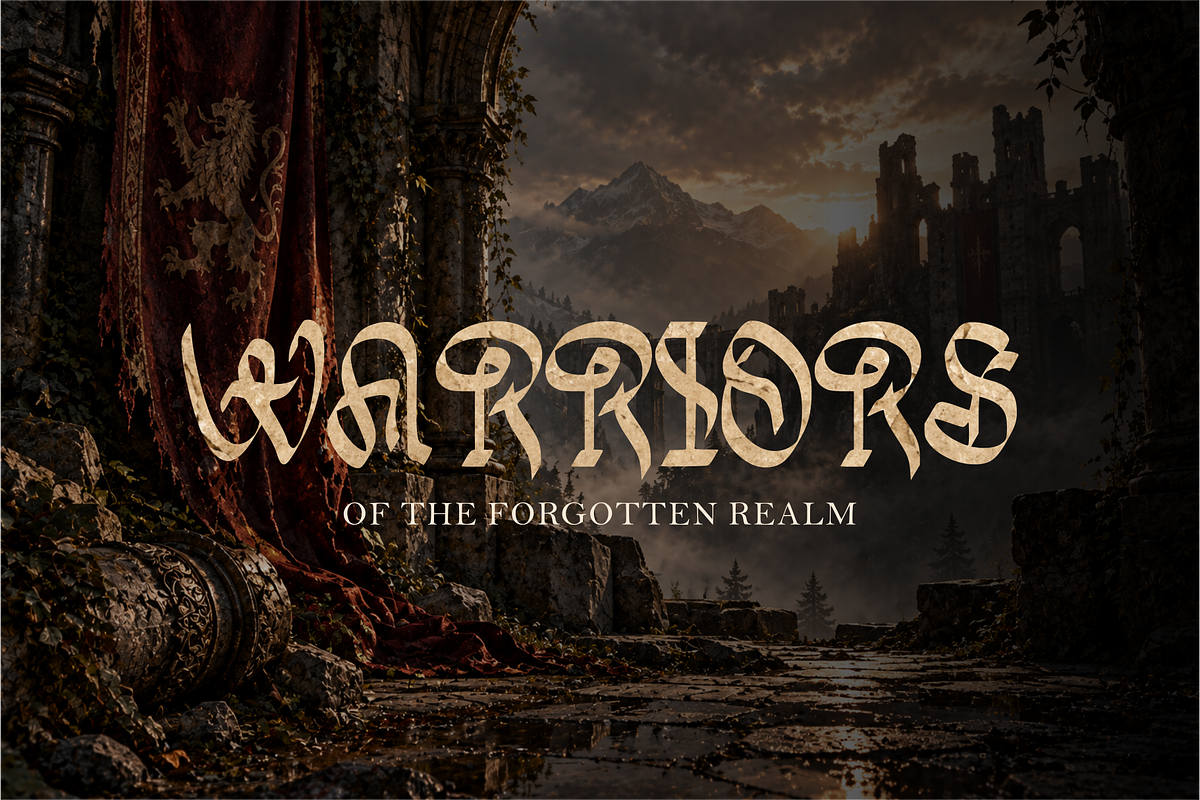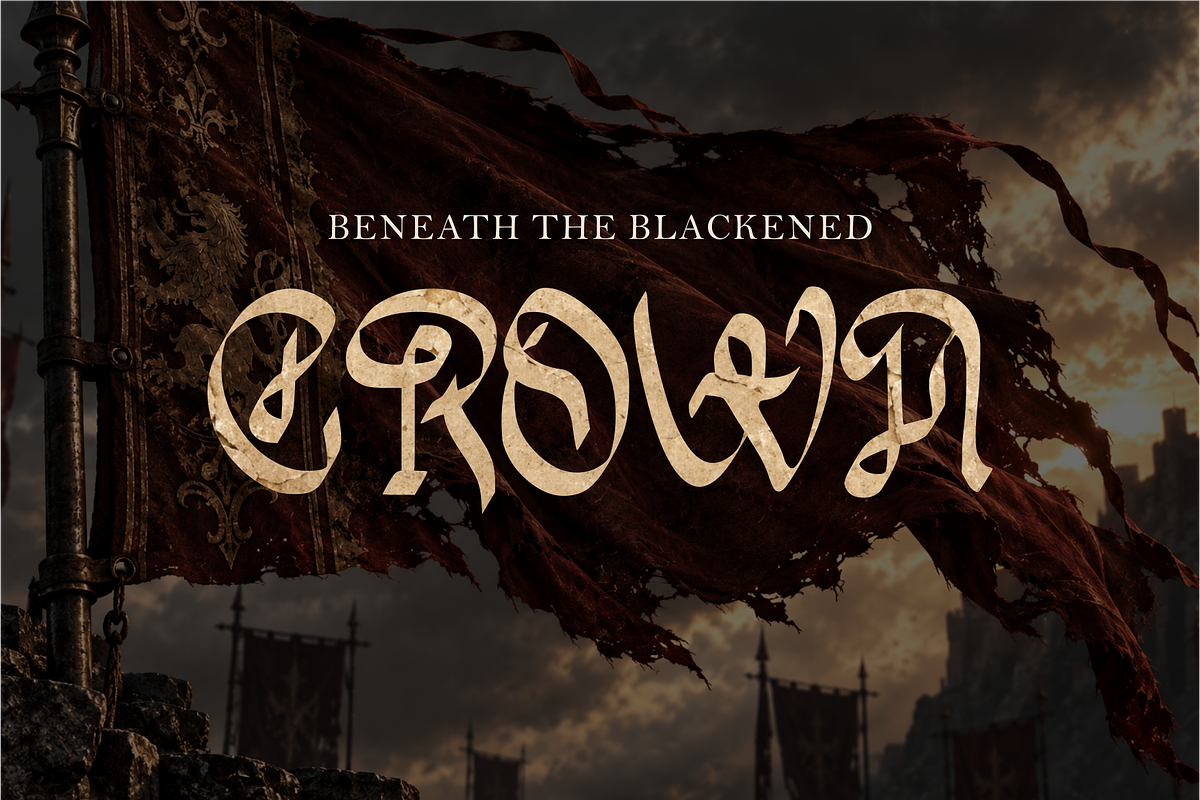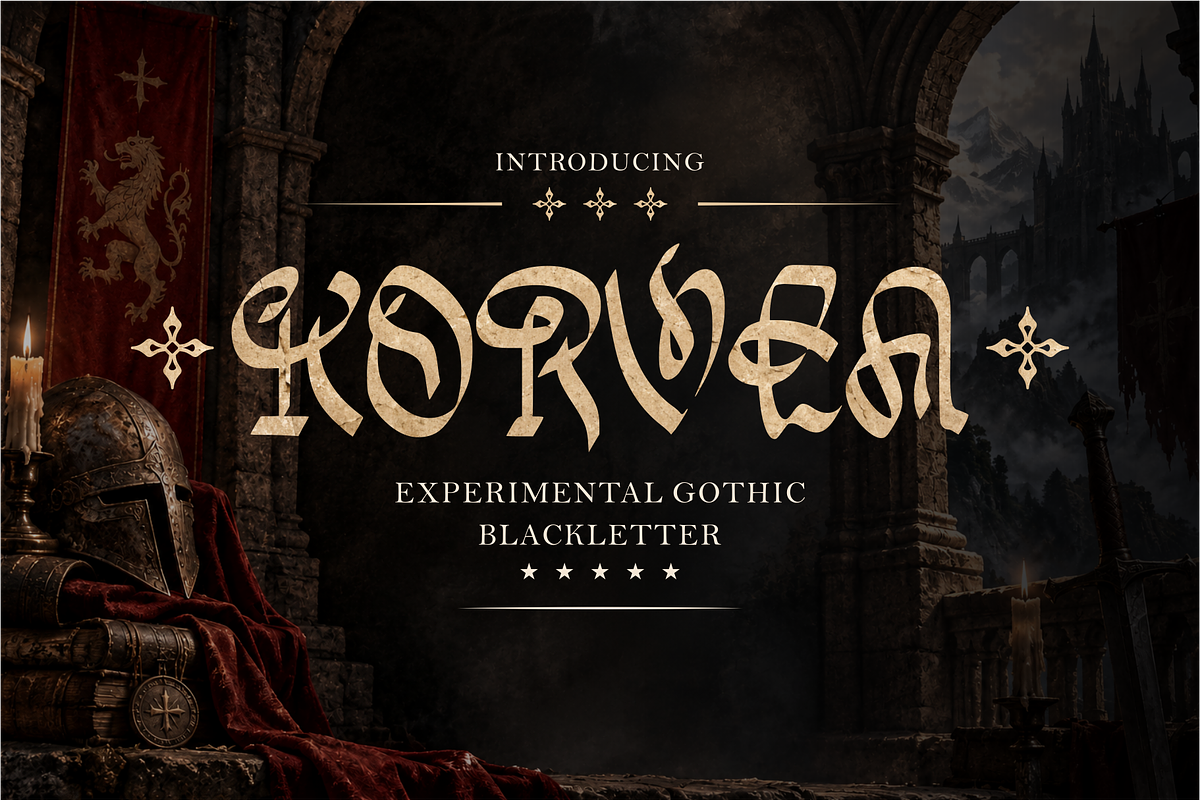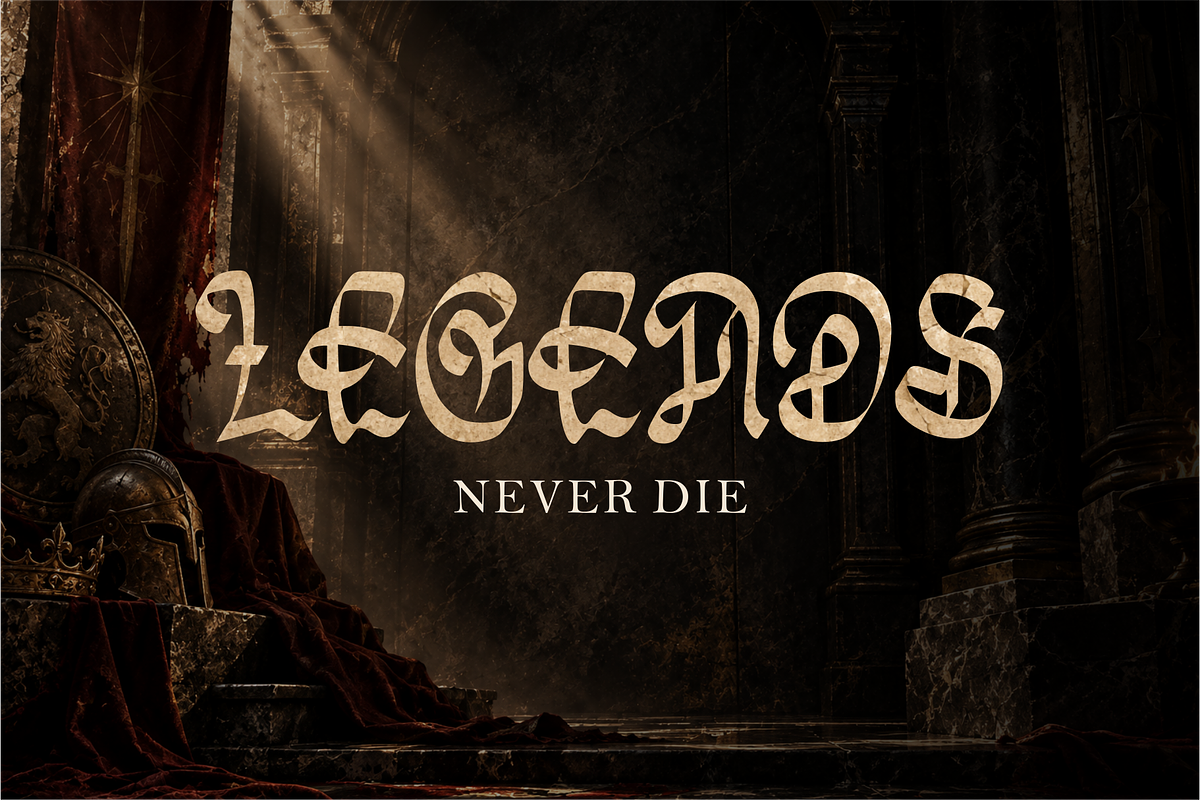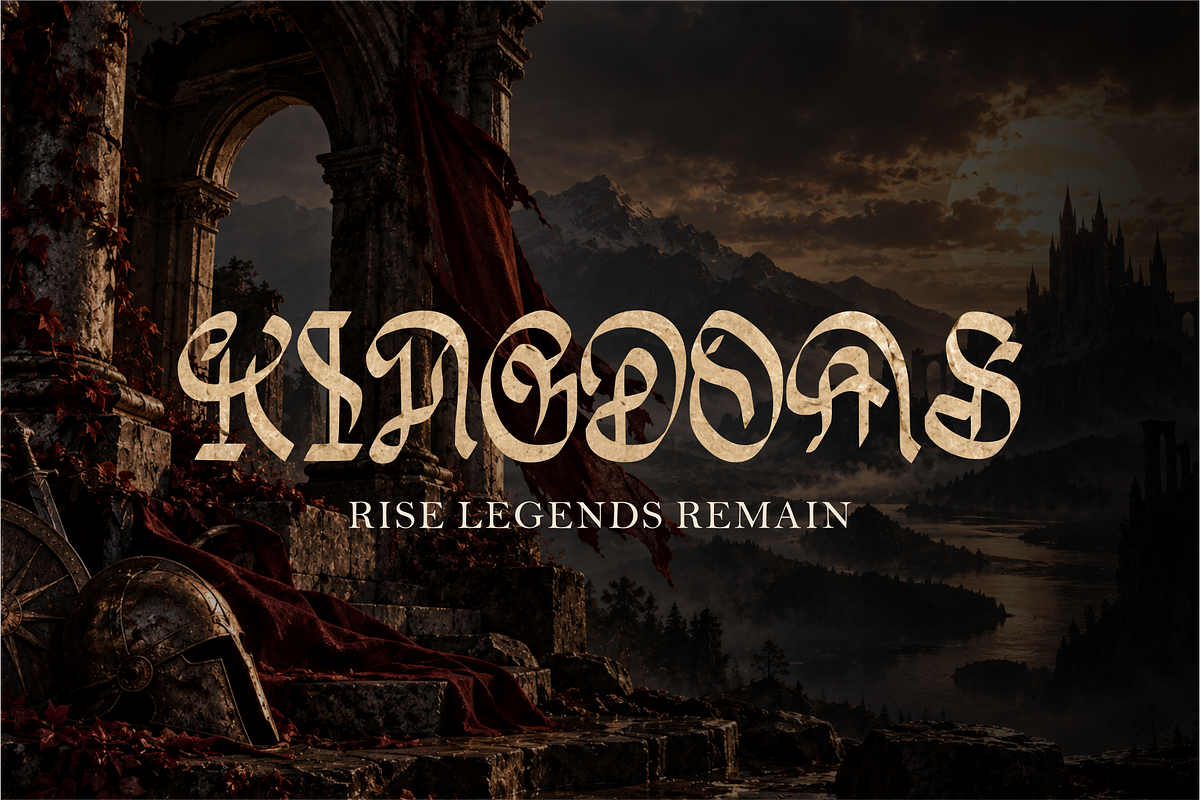
KORVEA — Experimental Gothic
KORVEA — Experimental Gothic Blackletter
KORVEA is a bold and distinctive experimental Gothic Blackletter typeface that blends the dramatic character of traditional medieval lettering with a contemporary, artistic approach. Its intricate forms, sharp details, unconventional letter structures, and strong visual presence create a dark and powerful aesthetic.
Inspired by medieval manuscripts, Gothic architecture, ancient heraldry, and dark fantasy, KORVEA brings an imposing and mysterious personality to every composition. The expressive shapes make it especially suitable for designs that need a strong historical, rebellious, or occult-inspired atmosphere.
Perfect for band logos, album covers, tattoos, clothing and streetwear, posters, branding, game titles, fantasy artwork, medieval-themed projects, editorial designs, and dramatic typography compositions.
KORVEA is designed to stand out—combining the heritage of Blackletter with an experimental edge for designers looking to create something dark, powerful, unconventional, and memorable.